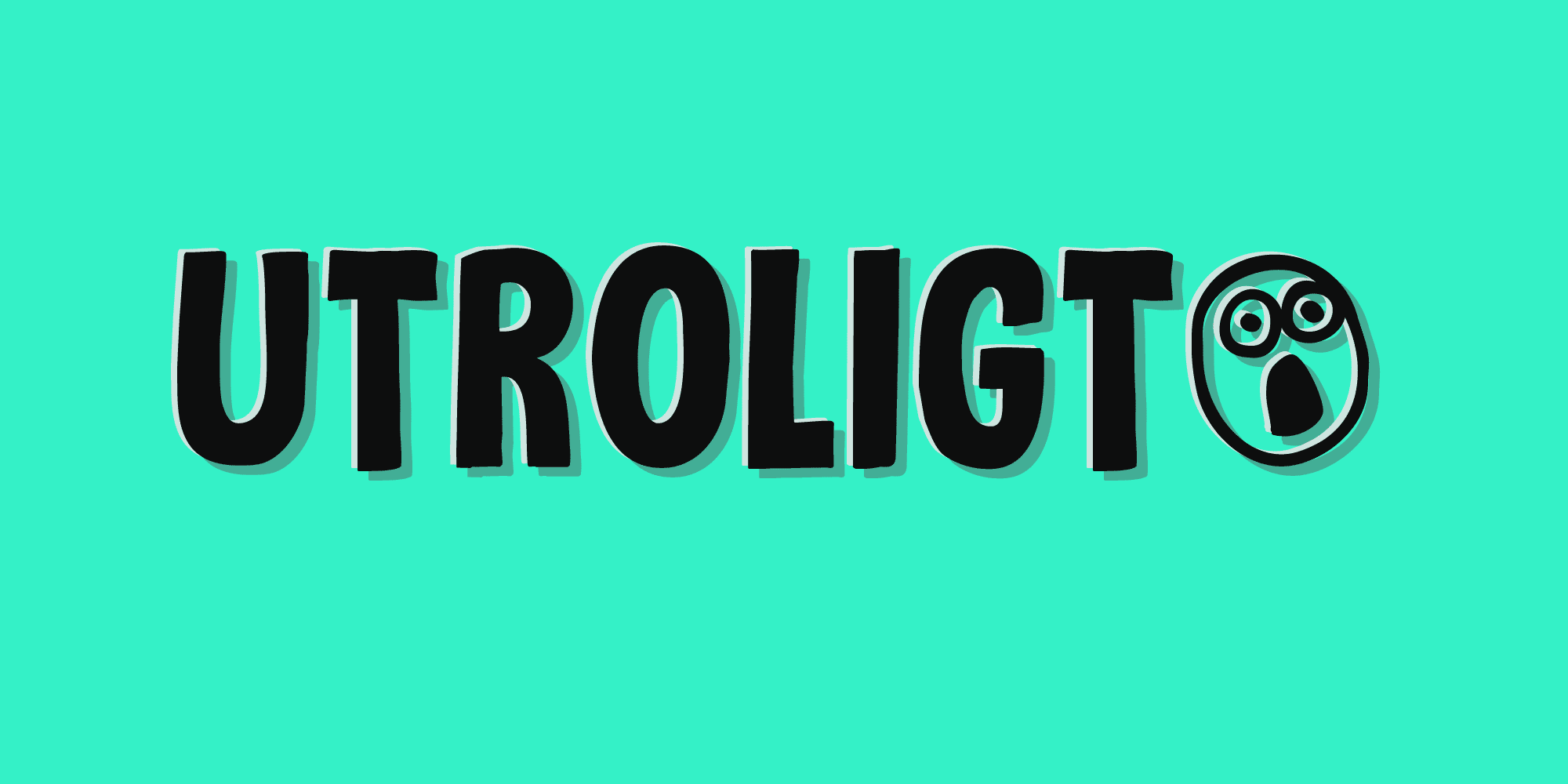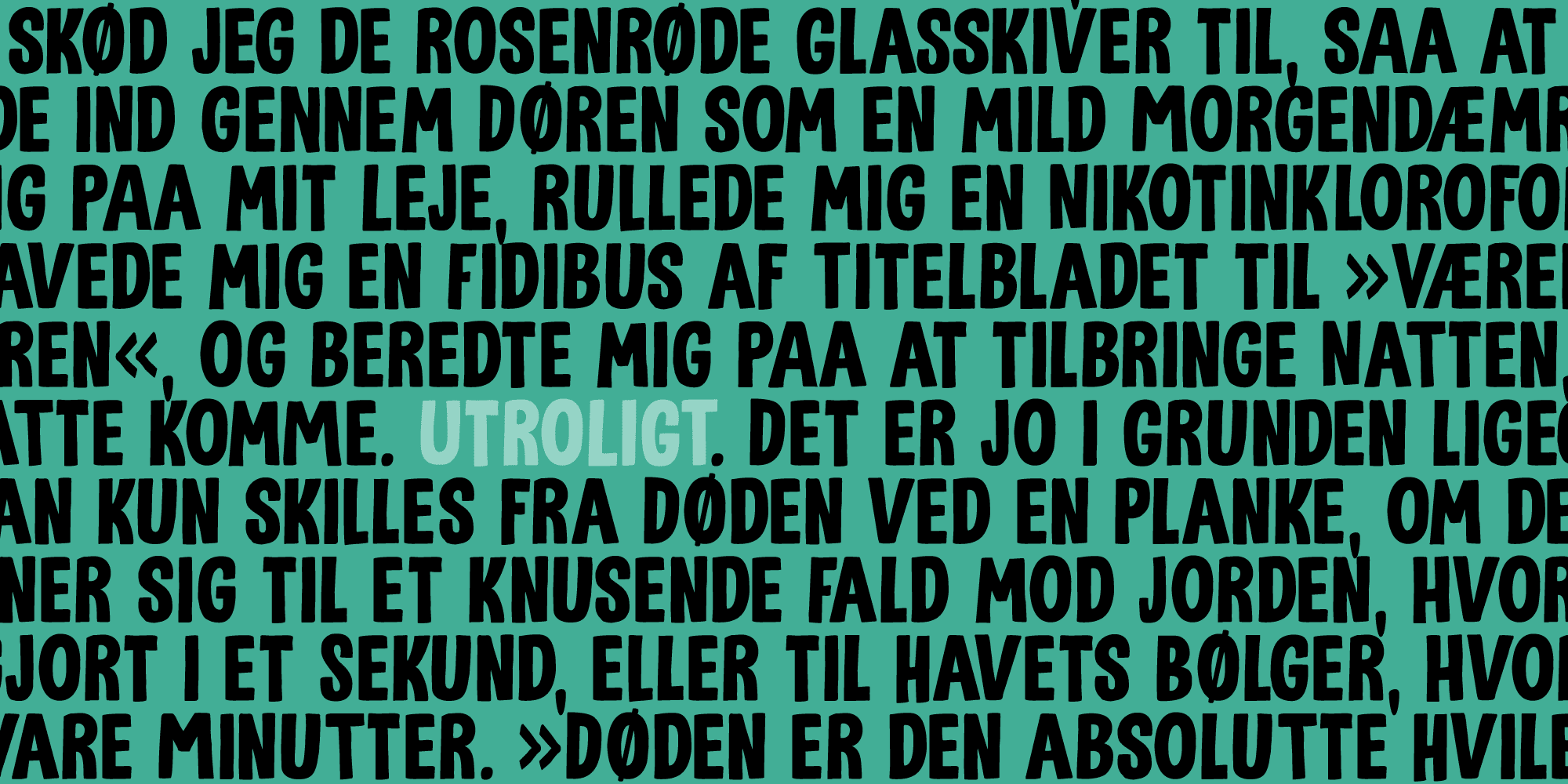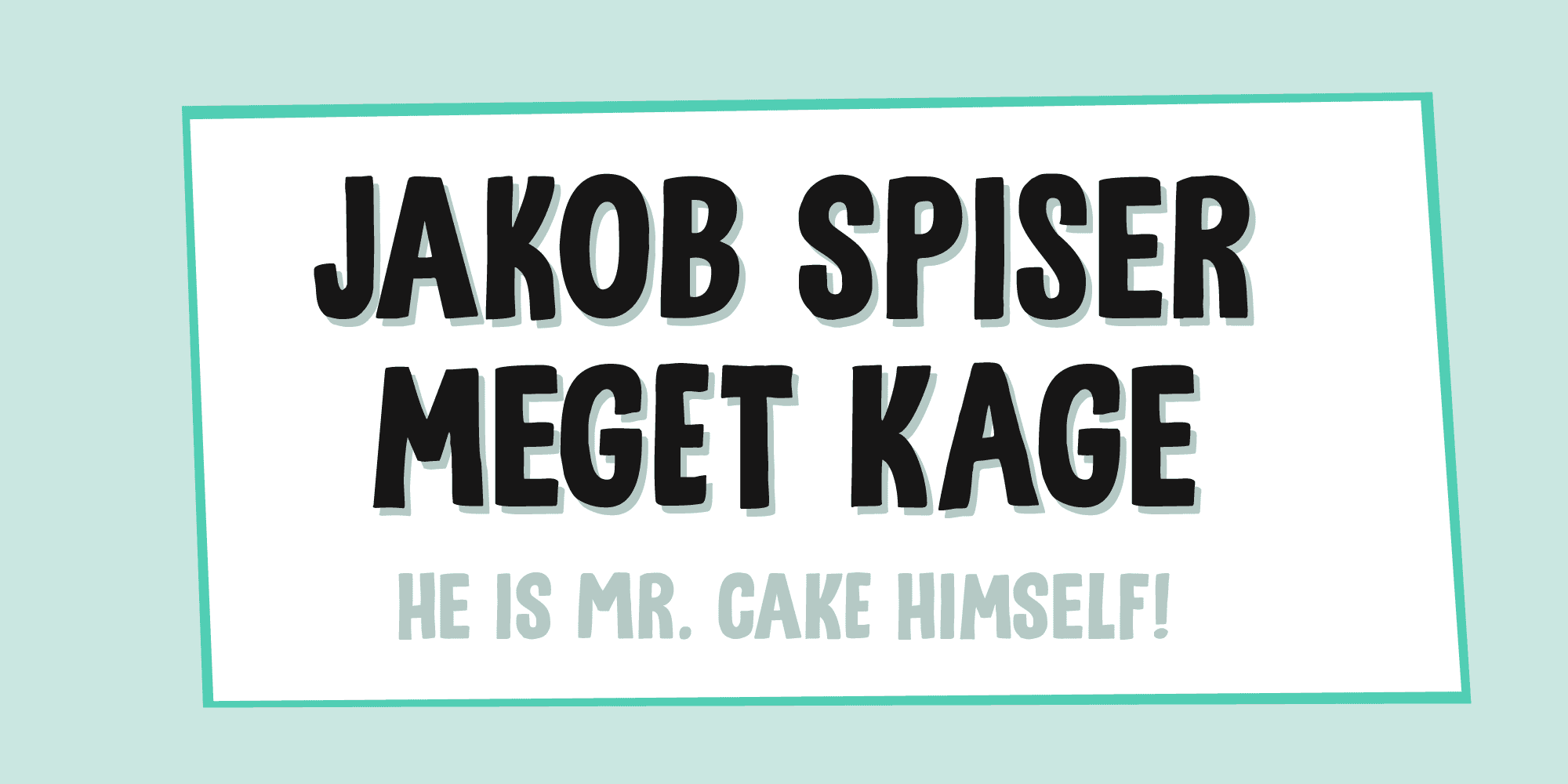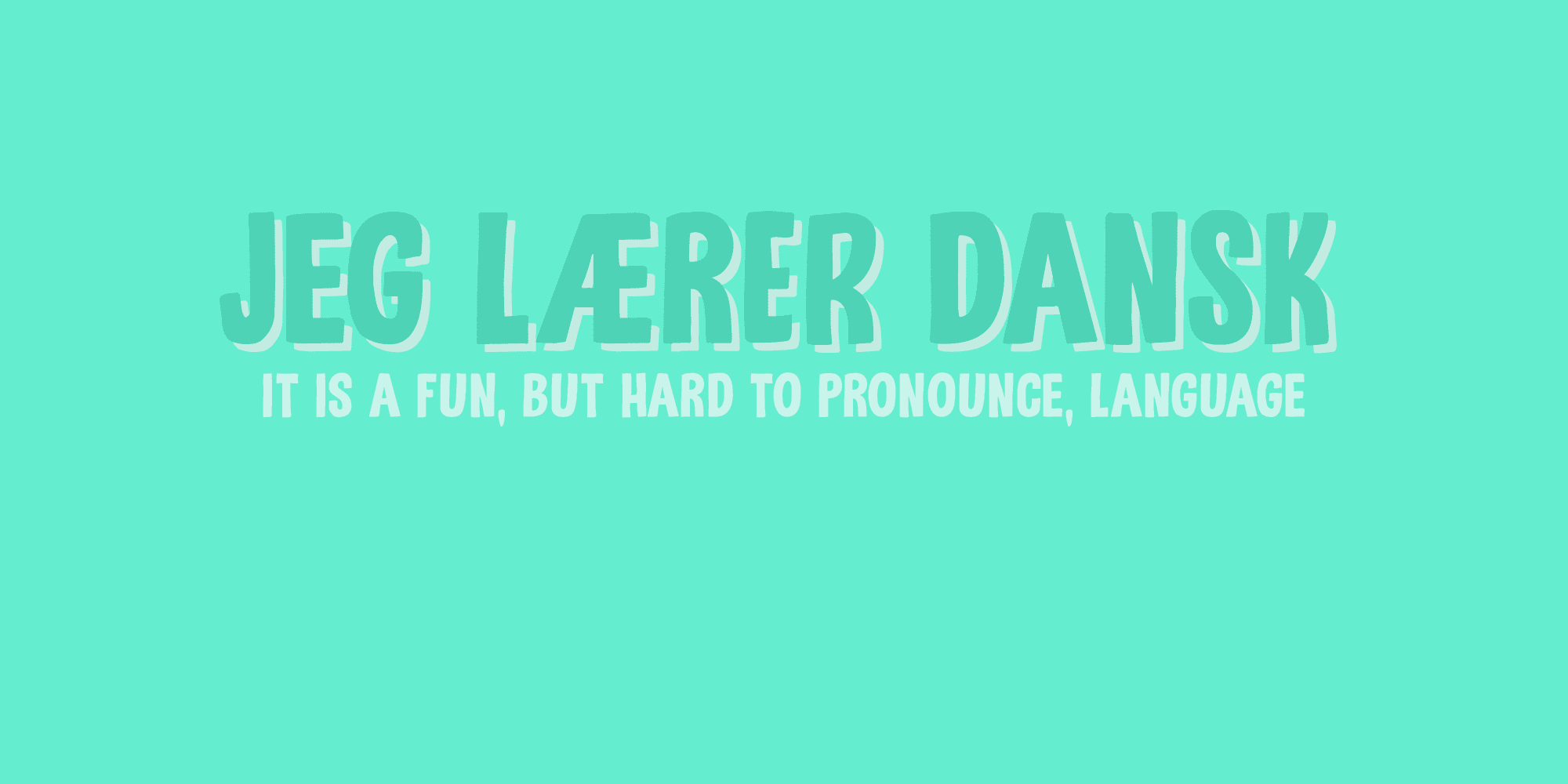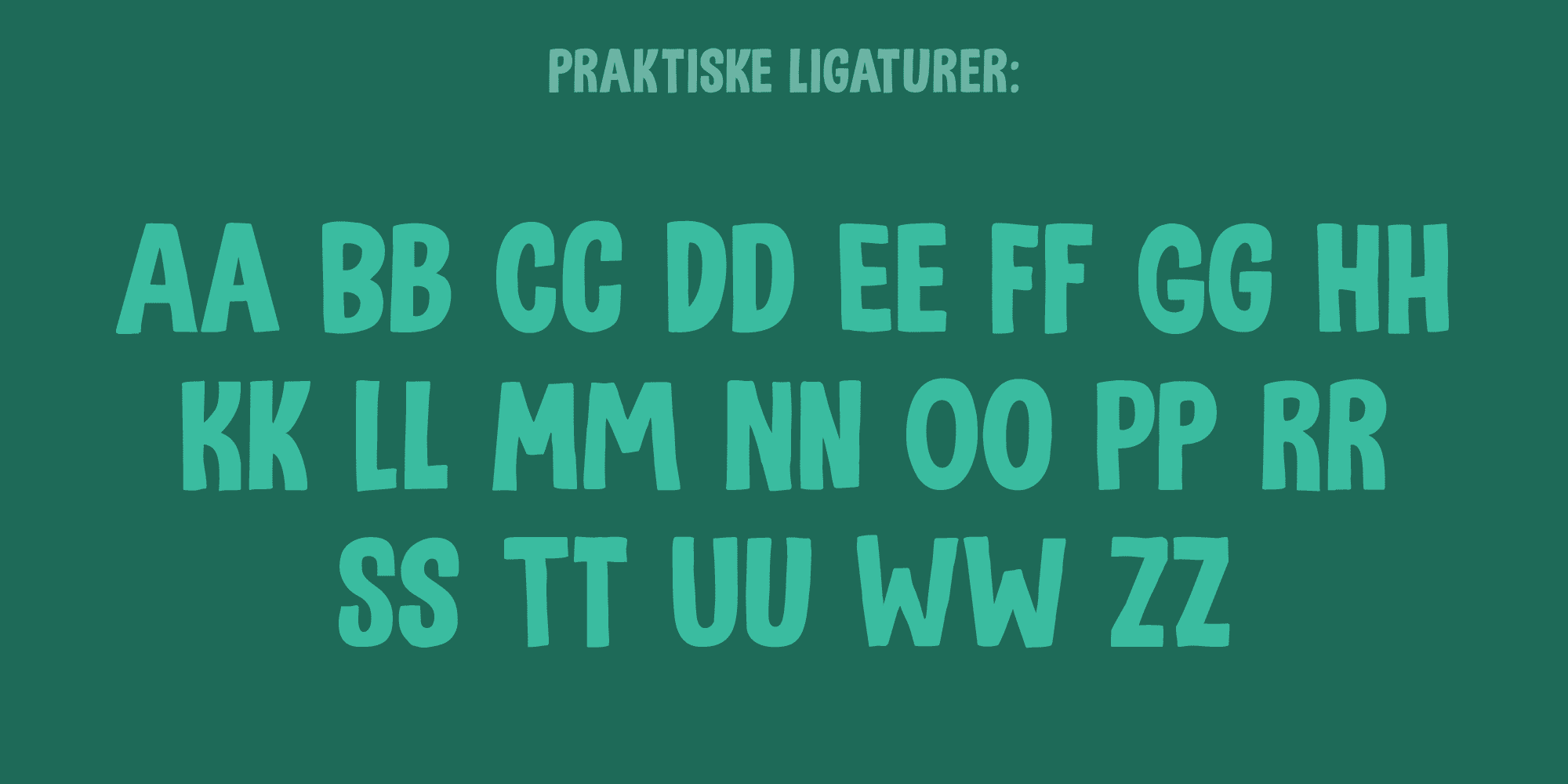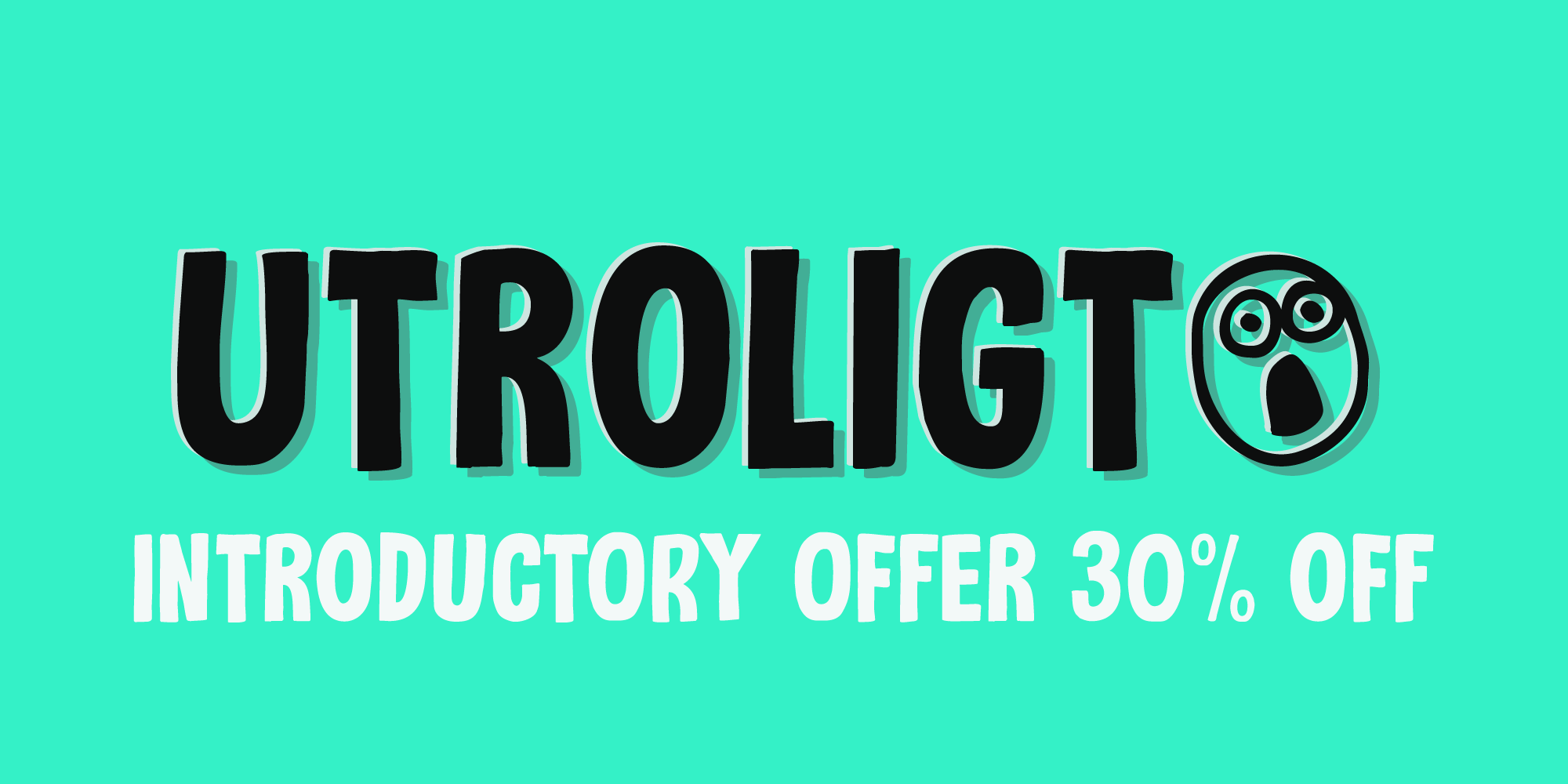
Utroligt is a Danish word meaning ‘incredible’. It is a nice, uncomplicated all caps font. I made it with a cheap rollerball pen and some nice French paper. Comes with double letter ligatures and all the diacritics you’d like - including the danish ones.